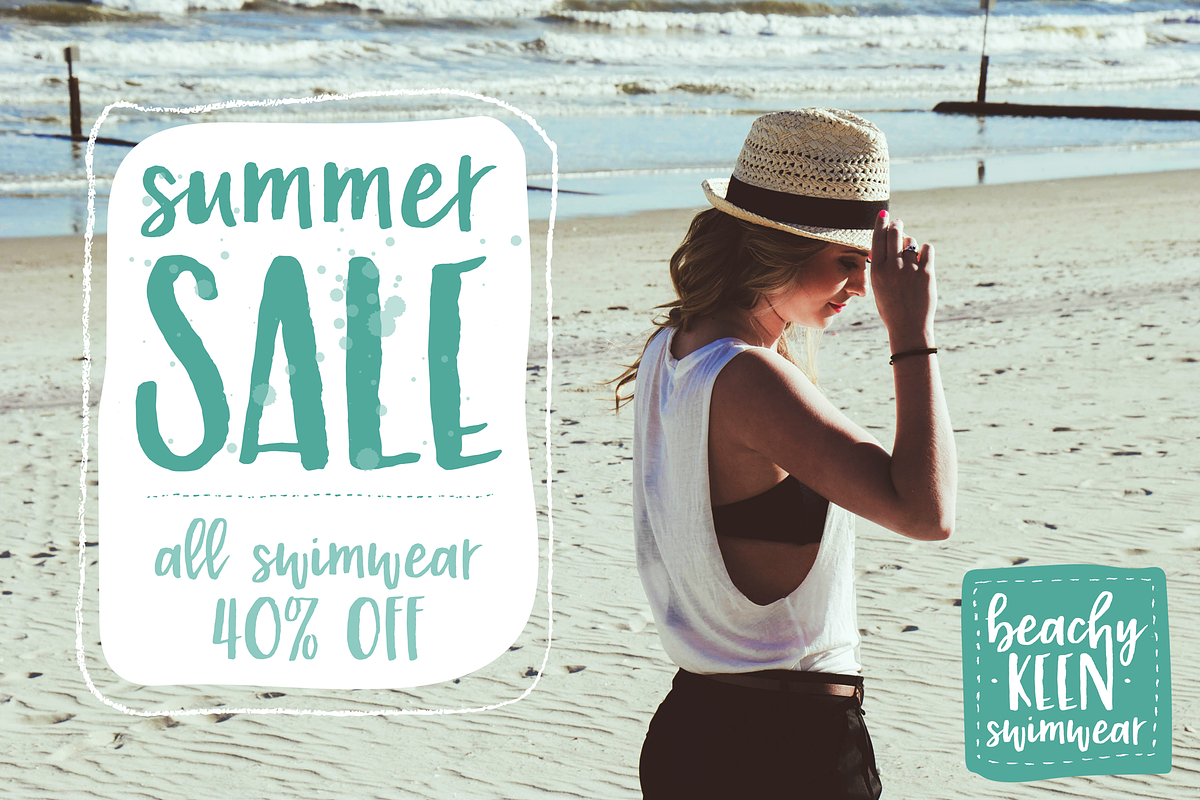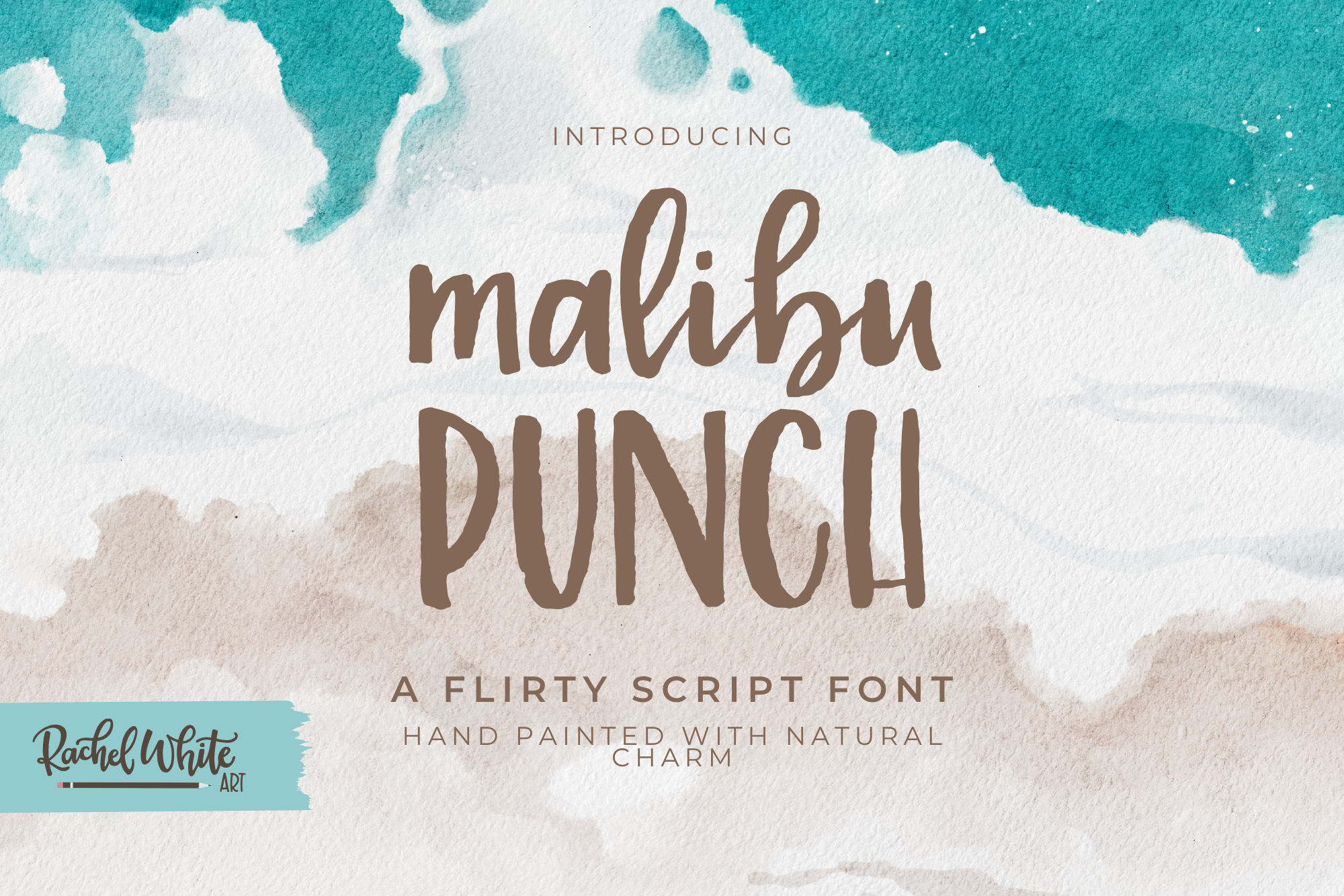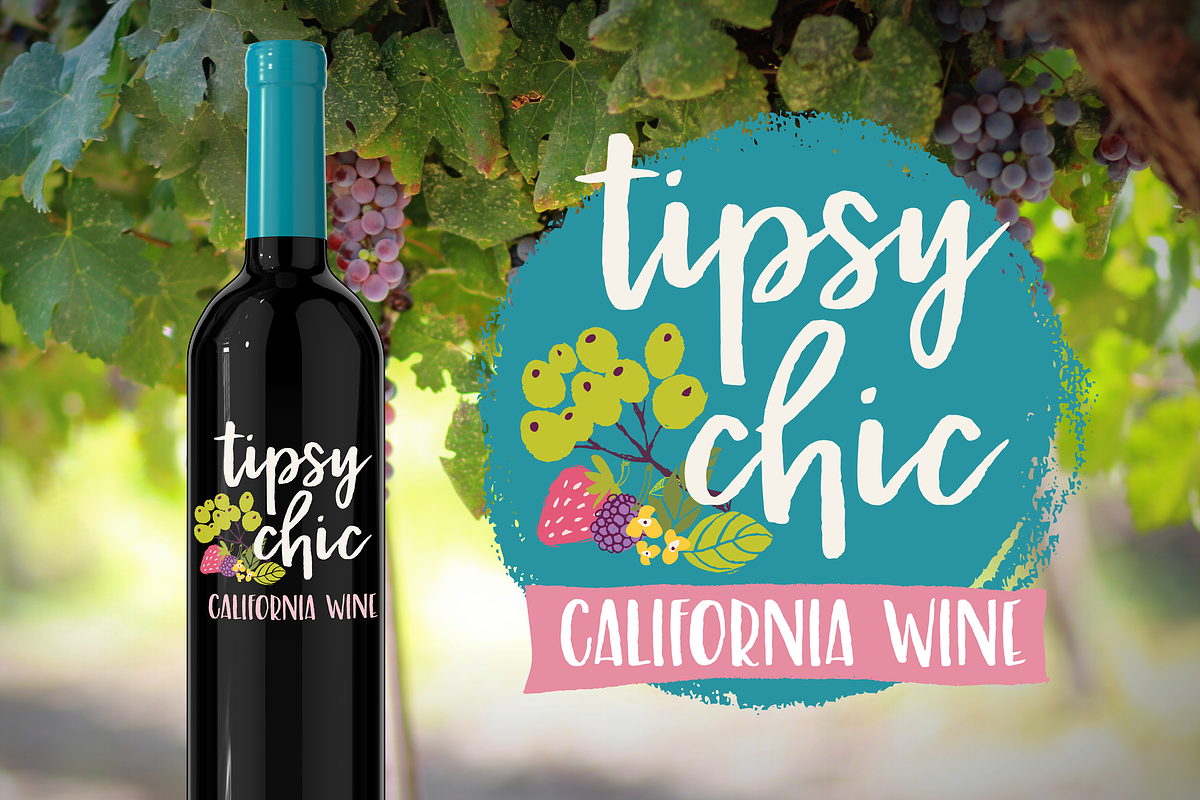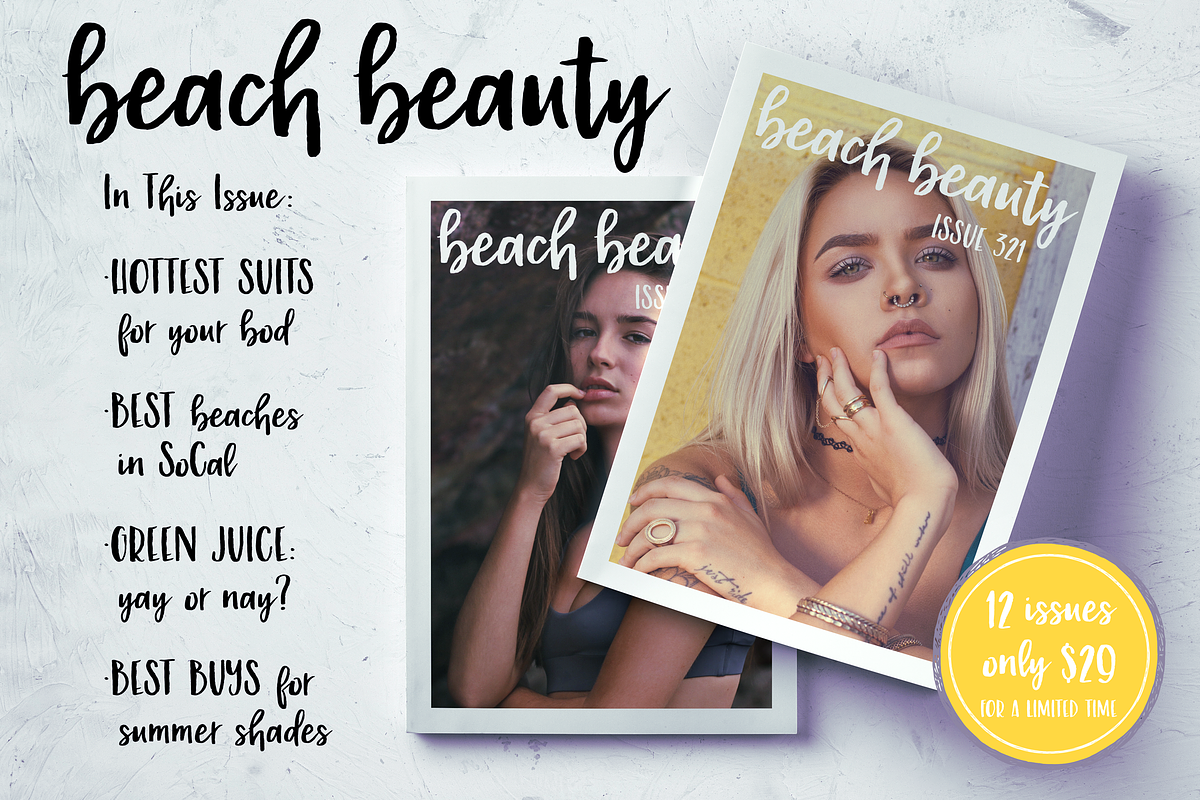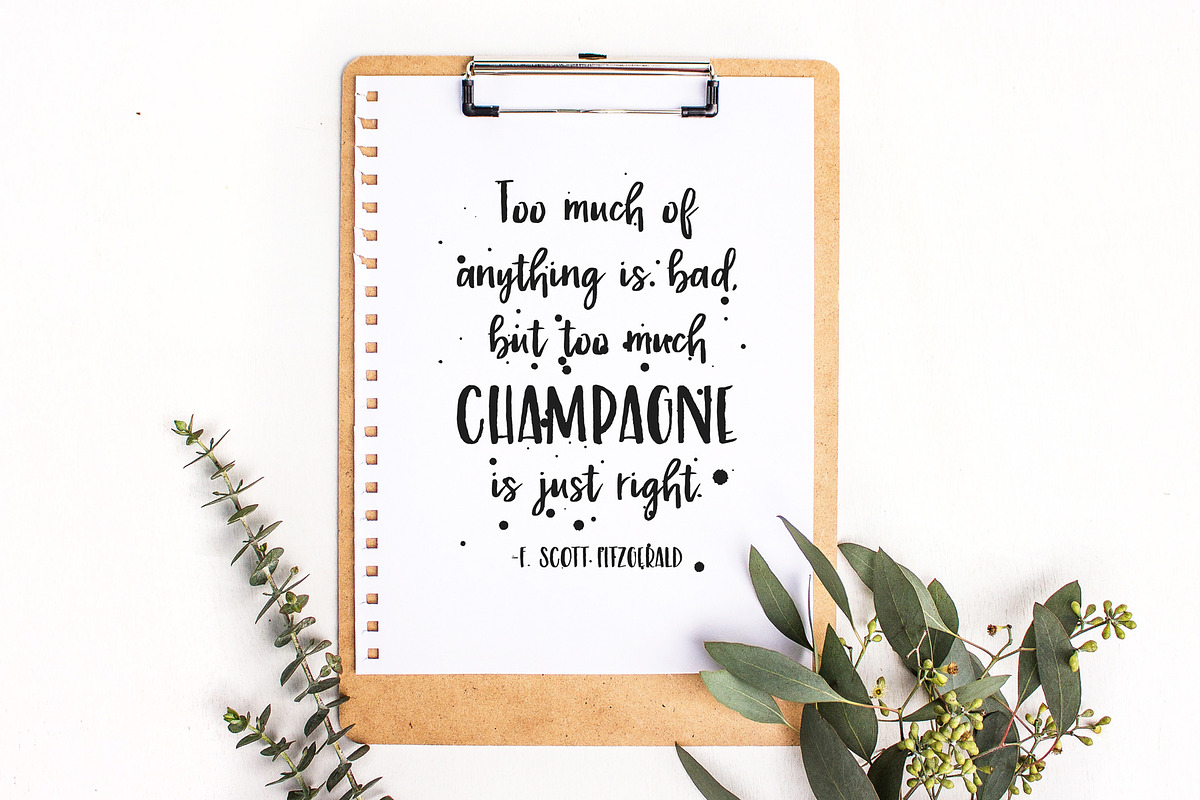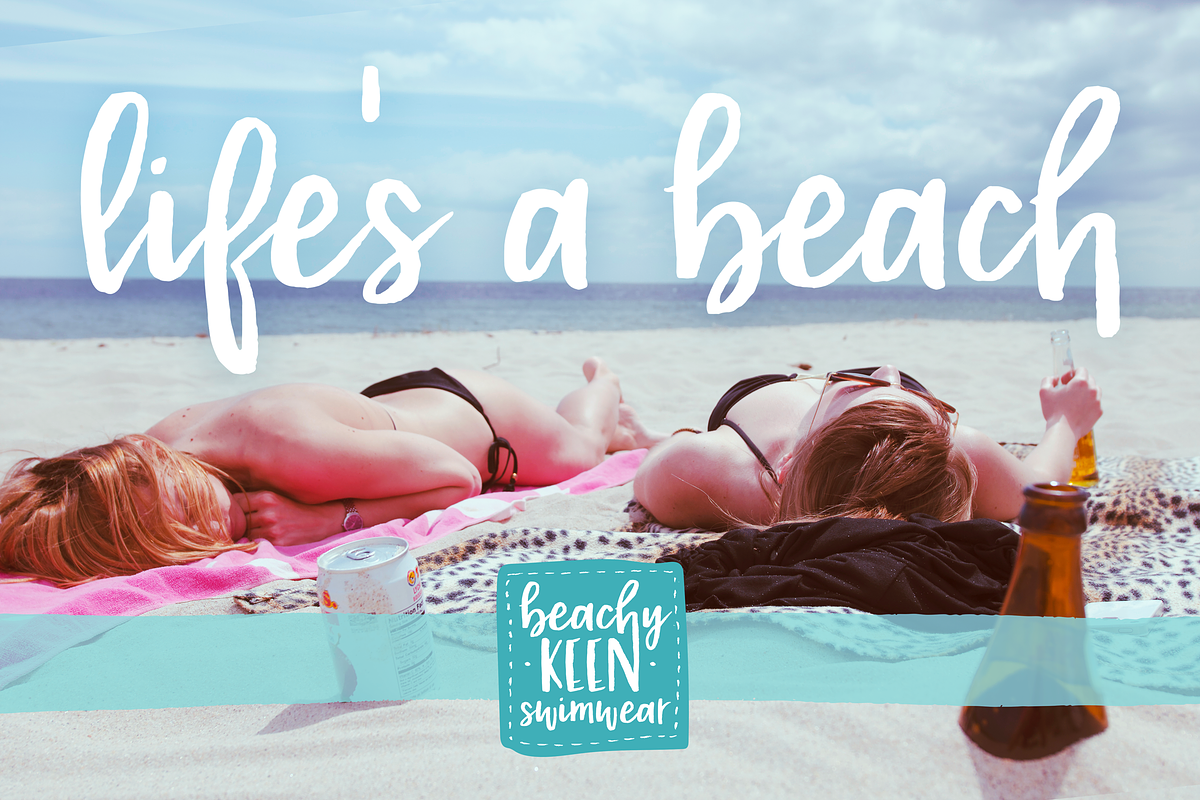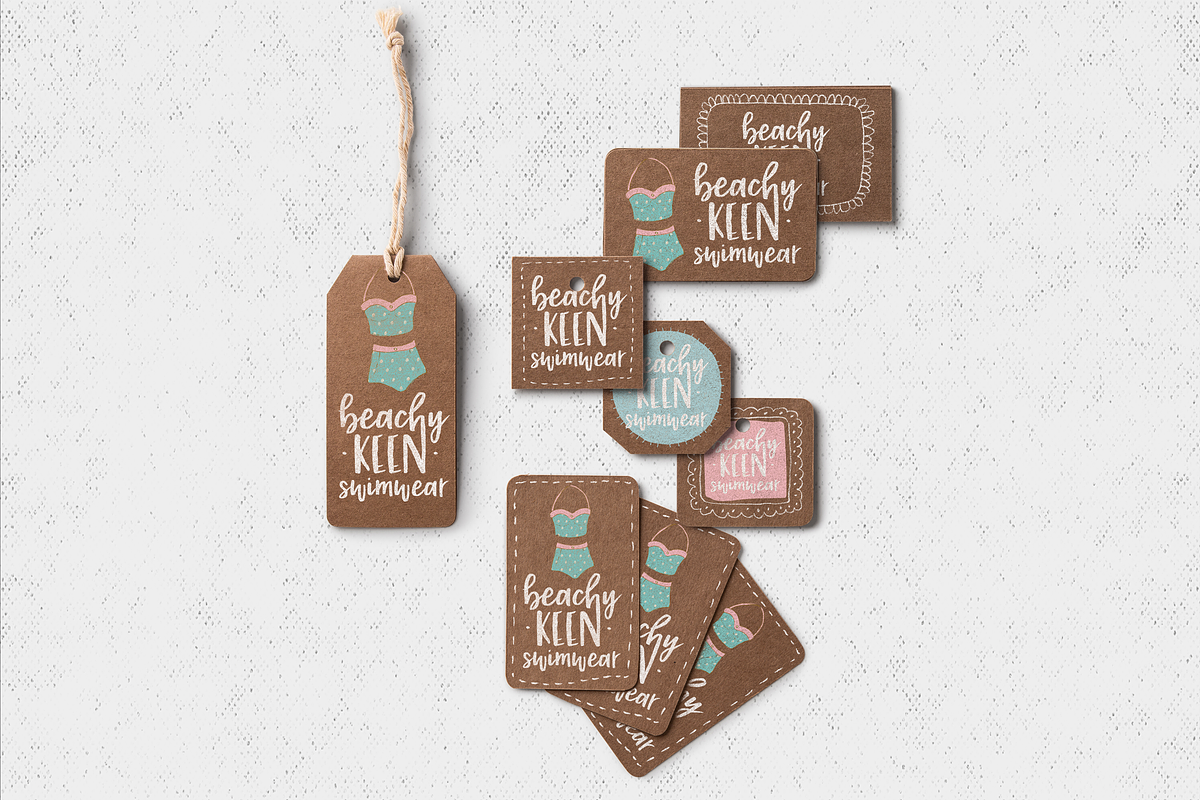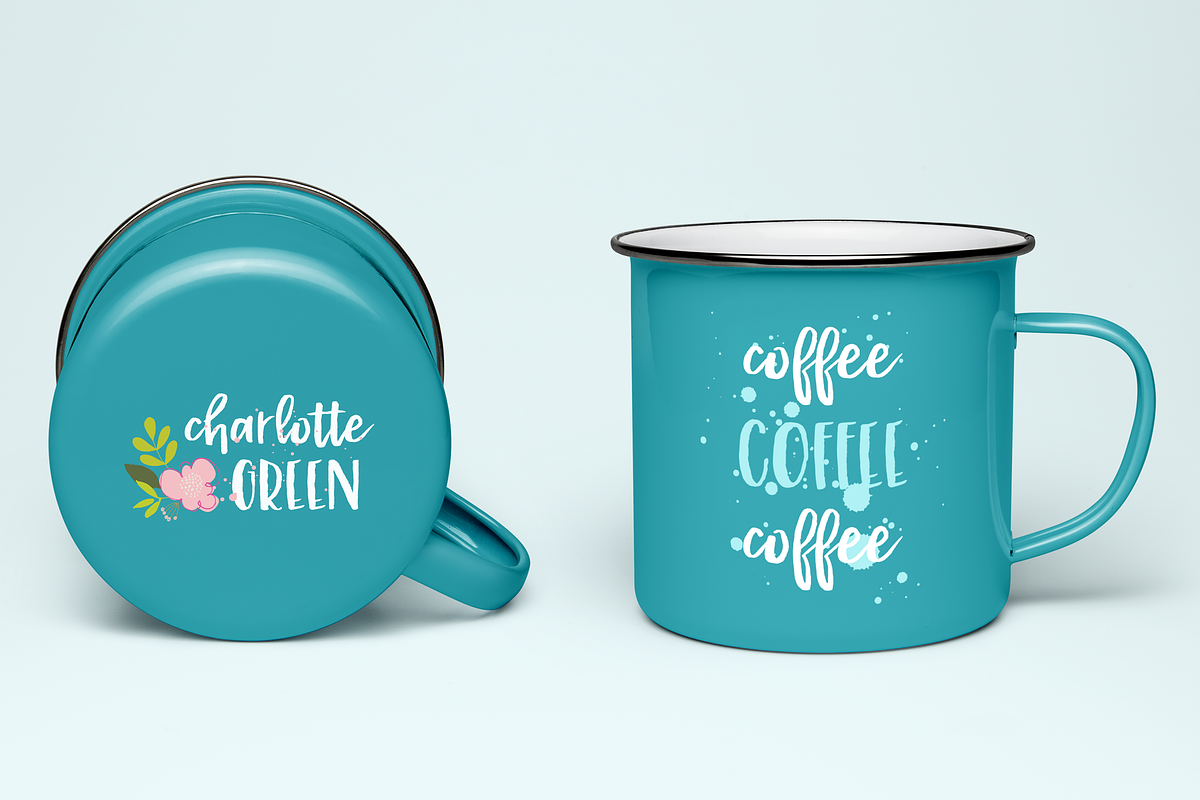
Malibu Punch, a flirty brush font
Malibu Punch is a flirty brush script font with a lively, playful vibe. Its energetic strokes and casual style make it perfect for branding, social media, packaging, invitations, and projects that need a fun, feminine touch.
This font brings personality and charm with every letter, giving your designs a fresh, approachable feel that’s perfect for creative entrepreneurs, bloggers, and lifestyle brands.
Great for: Branding, social media, invitations, packaging, logos, quotes